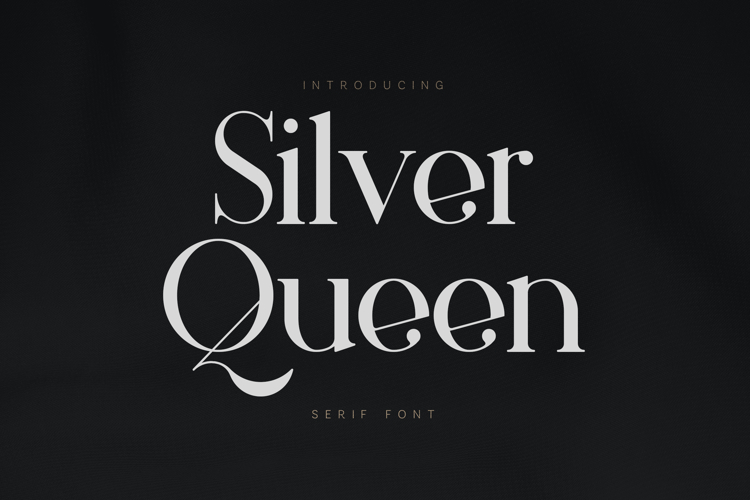
Silver Queen Serif Elegant Typeface for Branding
Silver Queen is a sophisticated serif font designed with elegance, contrast, and refined detail. Inspired by high-fashion editorials and luxury branding, it delivers a timeless aesthetic with a modern edge.
Featuring sharp serifs, graceful curves, and carefully balanced proportions, this typeface brings clarity and distinction to any composition. Its strong presence makes it perfect for headlines, while its refined structure ensures excellent readability across various applications.
With extensive multilingual support and beautifully crafted characters, Silver Queen is built for designers who seek precision, style, and versatility in their typography.
✨ Perfect for• Luxury branding
• Editorial design
• Fashion magazines
• Logo design
• Packaging
• High-end web design
🔤 Features• Uppercase & lowercase
• Elegant high-contrast serif
• Clean and refined letterforms
• Modern editorial style